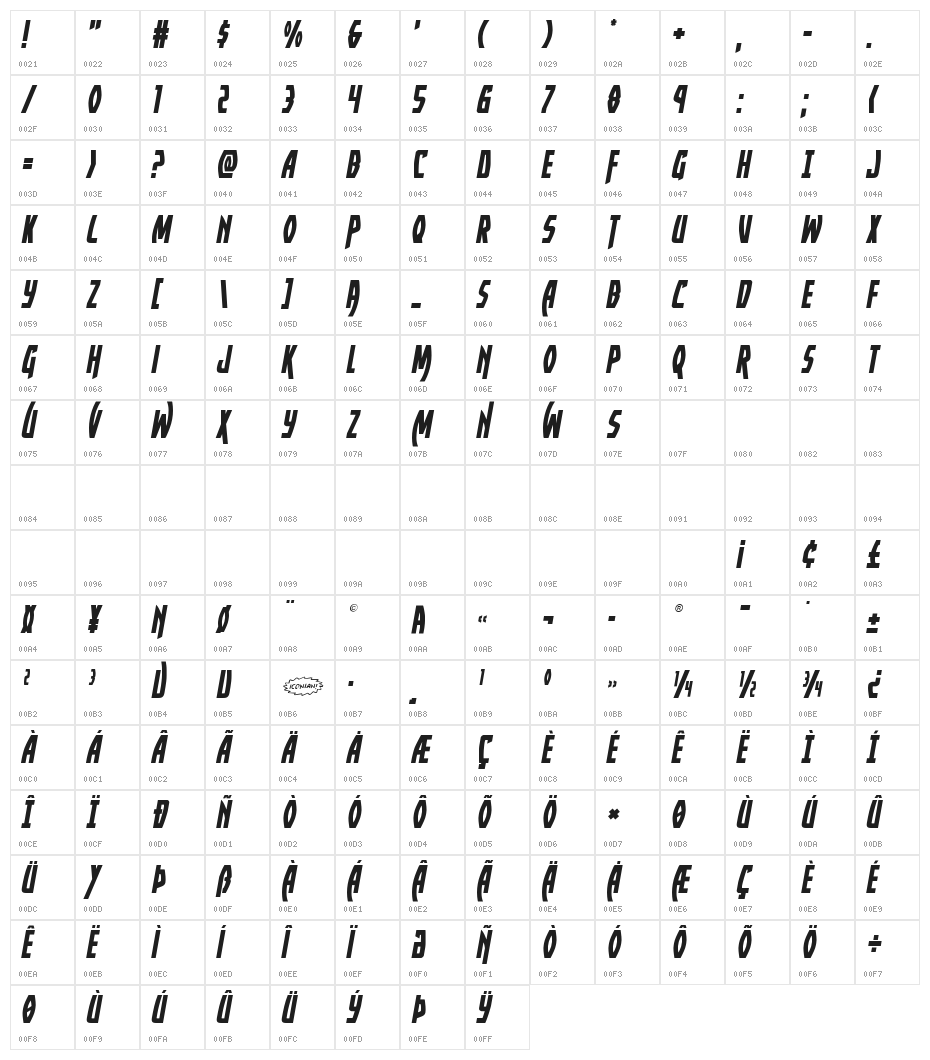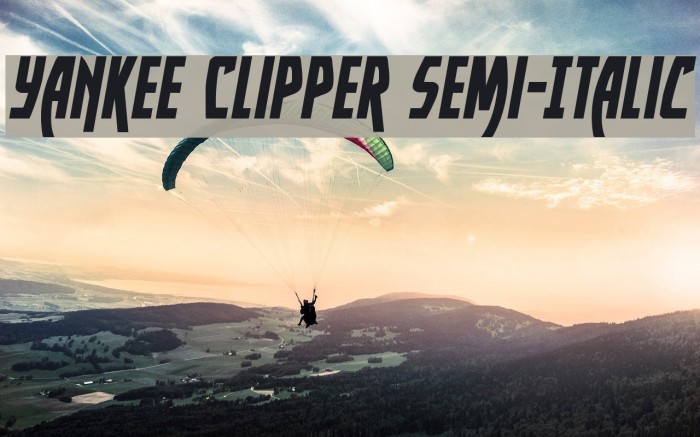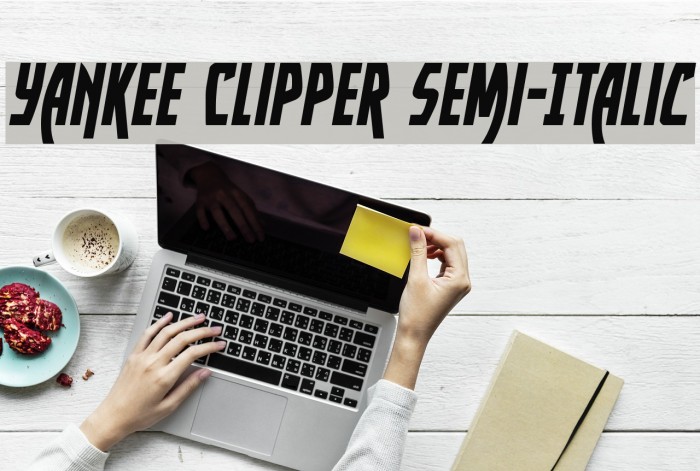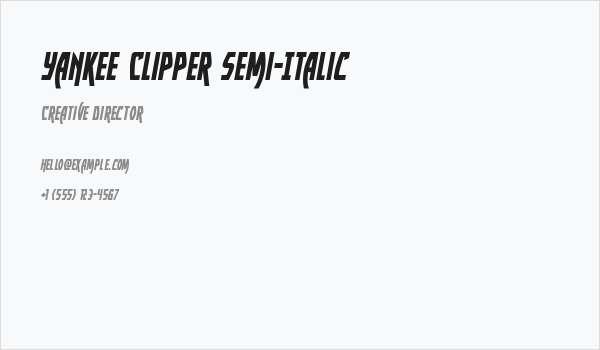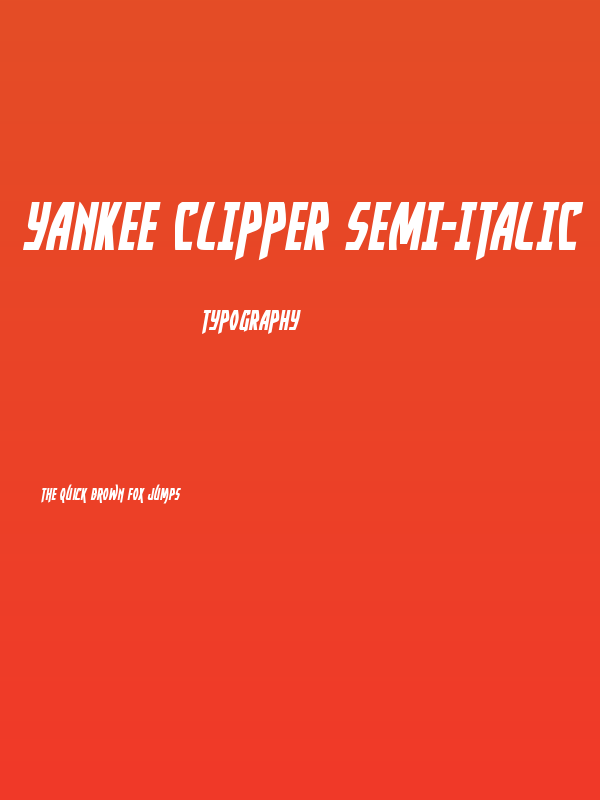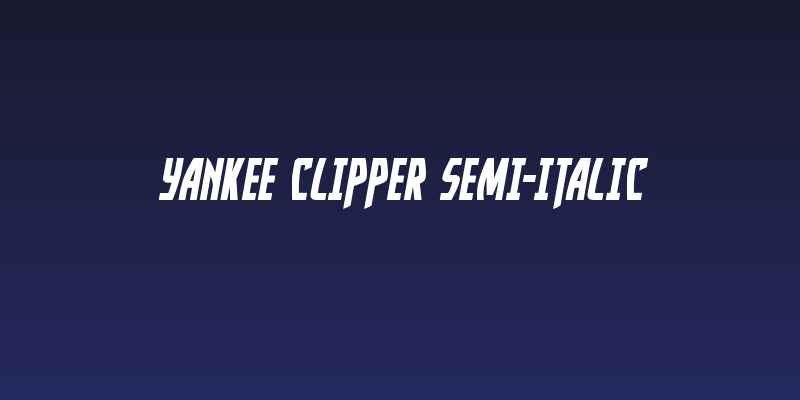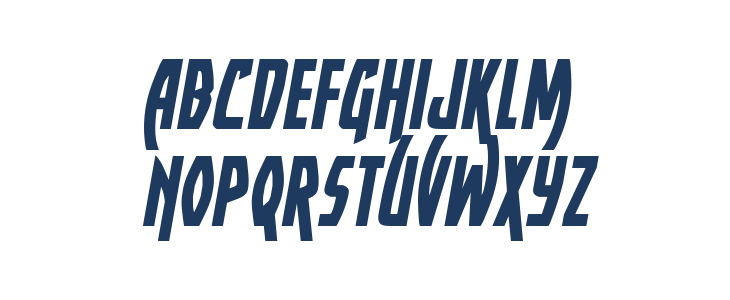
Yankee Clipper Semi-Italic Font
Yankee Clipper Semi-Italic Description
This font features a bold, dynamic style with a semi-italic slant, giving it a sense of motion and energy. The characters are sharply angled, with distinct geometric shapes that create a strong visual impact. The uppercase and lowercase letters maintain a consistent style, with a slight forward tilt that enhances the font's modern and edgy appearance. The numerals and special characters are designed to match the boldness and angularity of the letters, ensuring a cohesive look across all text elements. This font is ideal for projects that require a striking and contemporary aesthetic.